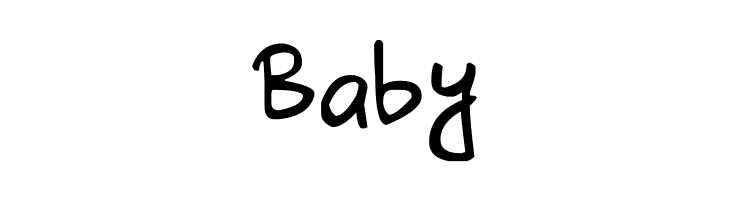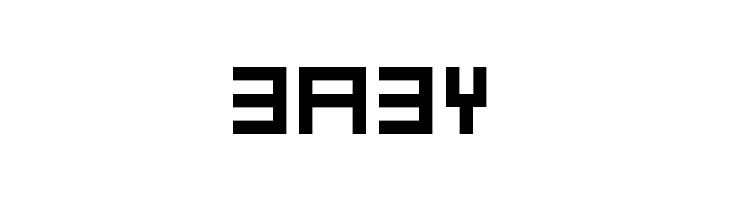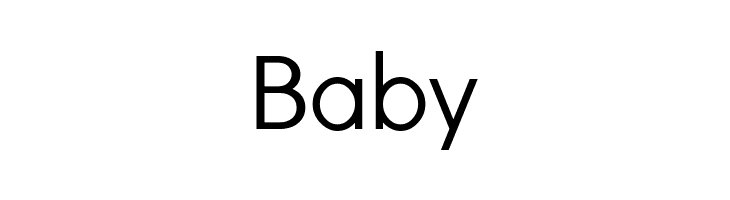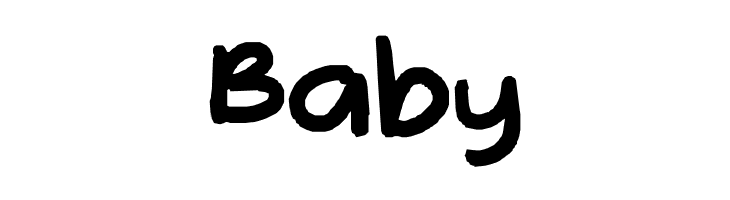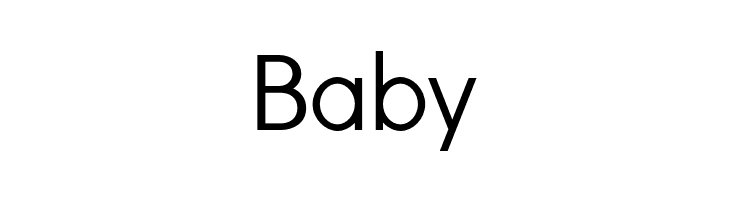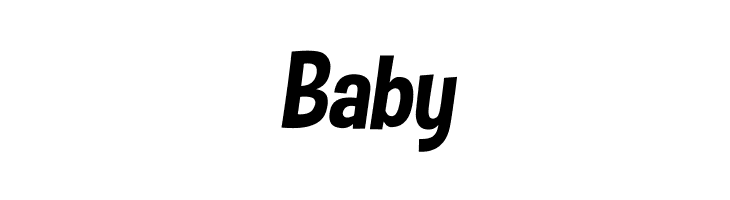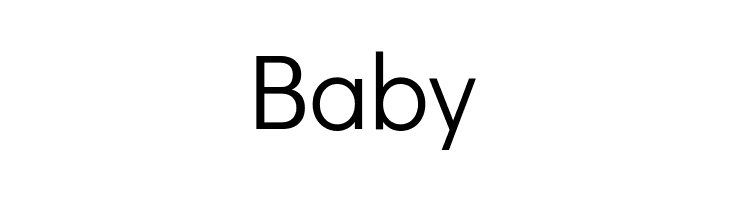
A playful, whimsical handwritten font with irregular strokes and a casual vibe.
A playful, casual handwritten font with smooth, flowing lines and charming irregularities.
A playful, hand-drawn font with bold, irregular characters.
A playful, casual handwritten font with uneven strokes and a whimsical appearance.
A casual, handwritten font with a playful and personal touch.
A playful, casual handwritten font with dynamic strokes.
A lively handwritten font with fluid strokes and playful character.
A playful and casual handwritten font with fluid, organic strokes.
A casual, handwritten font with a playful and informal style.
A modern, clean sans-serif font with excellent readability and uniform design.
A classic serif font with elegant strokes and clear numerals.
An elegant italic serif font with a classic and sophisticated style.
A modern, clean sans-serif font with uniform strokes and excellent readability.
A bold, modern sans-serif font with strong, uniform strokes and excellent readability.
A bold, modern sans-serif font with a clean and slightly condensed style.
A bold, modern sans-serif typeface with strong, thick strokes.
A modern, light sans-serif font with clean lines and excellent readability.
A clean, modern sans-serif font with a light weight and balanced design.
A modern sans-serif font with open, rounded letterforms and uniform stroke thickness.
A clean, modern sans-serif typeface with open, rounded letterforms and uniform strokes.
A modern, semi-bold sans-serif font with clean lines and excellent readability.
A modern, semi-bold sans-serif font with excellent readability and a clean design.
A playful, bold font with rounded, slightly slanted characters.
A playful, hand-drawn font with a rustic and whimsical style.
A modern, playful sans-serif font with rounded characters.
A playful, rounded sans-serif font with a clean and modern look.
A playful, bold italic sans-serif font with smooth, rounded characters.
A playful, bold, and italic typeface with rounded edges and smooth curves.
A sleek, modern italic font with smooth curves and consistent stroke width.
A clean, minimalist font with a light weight and friendly roundness.